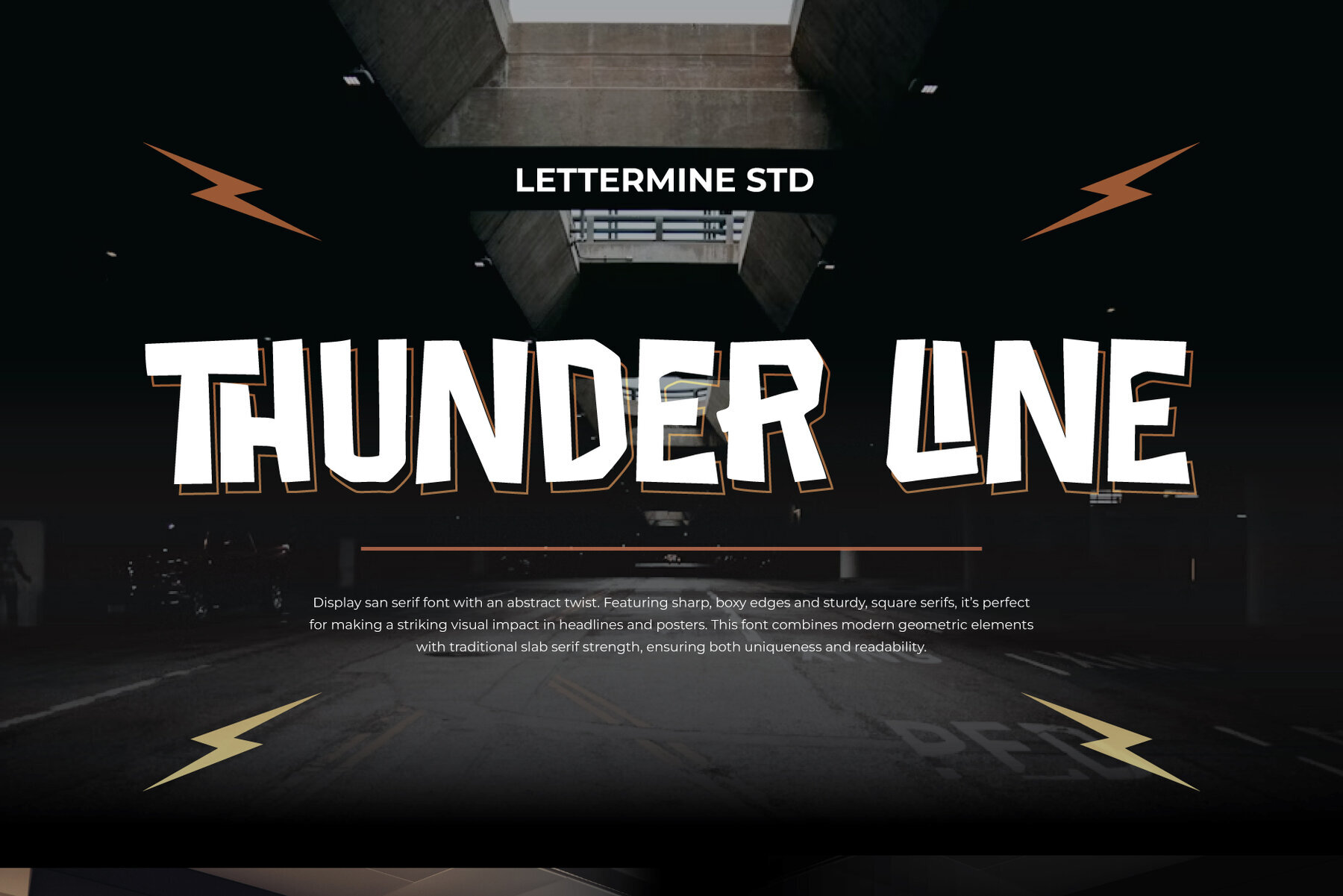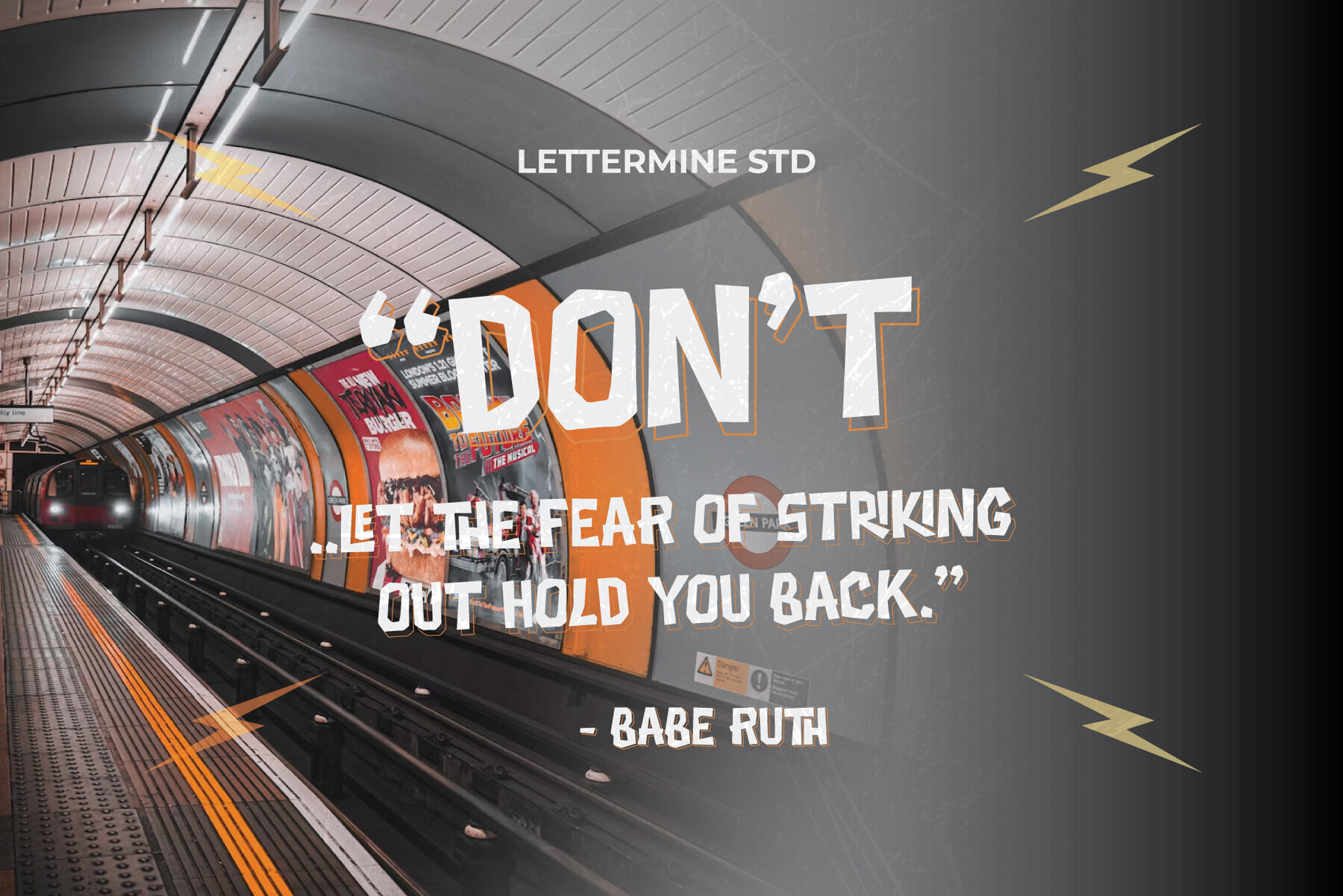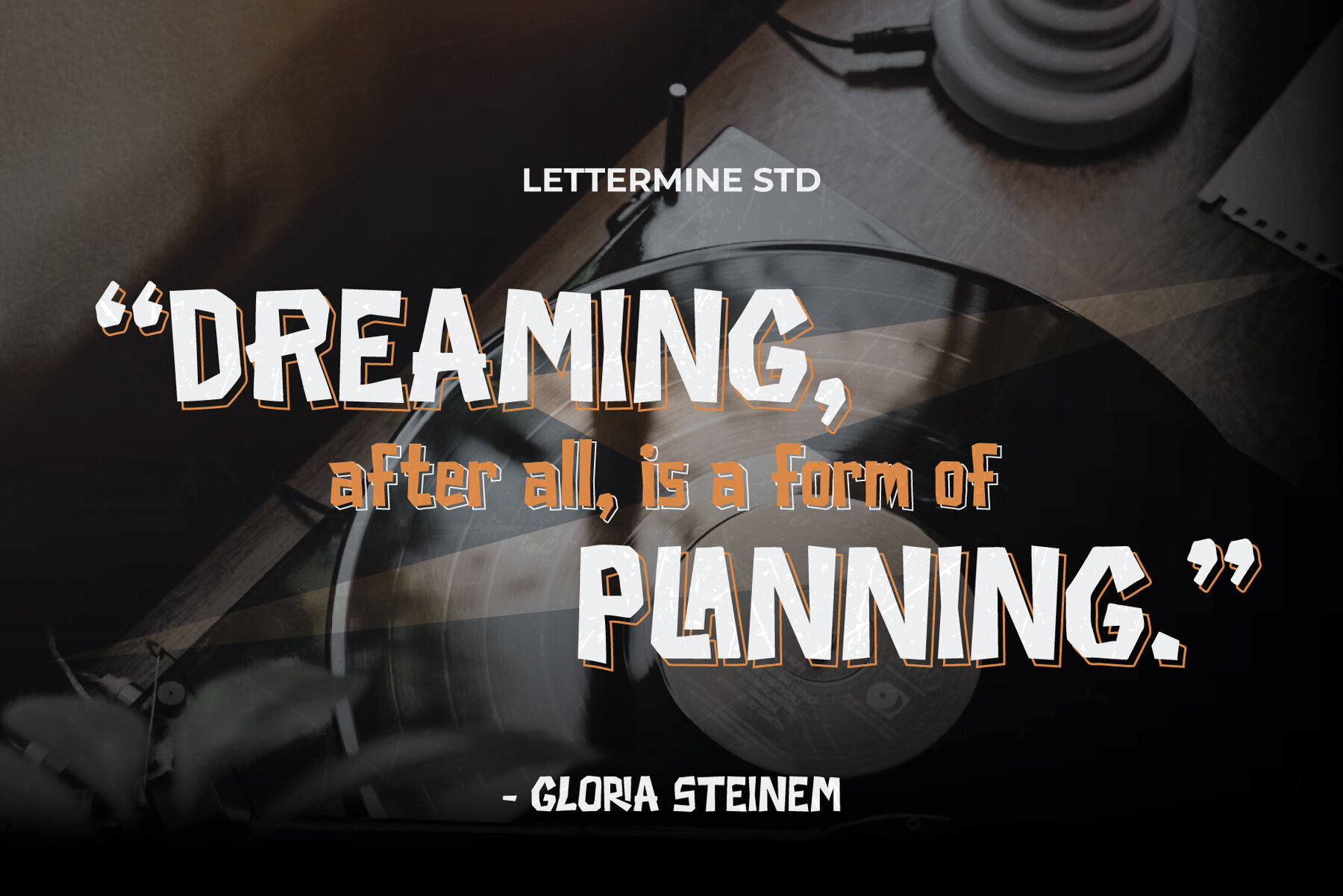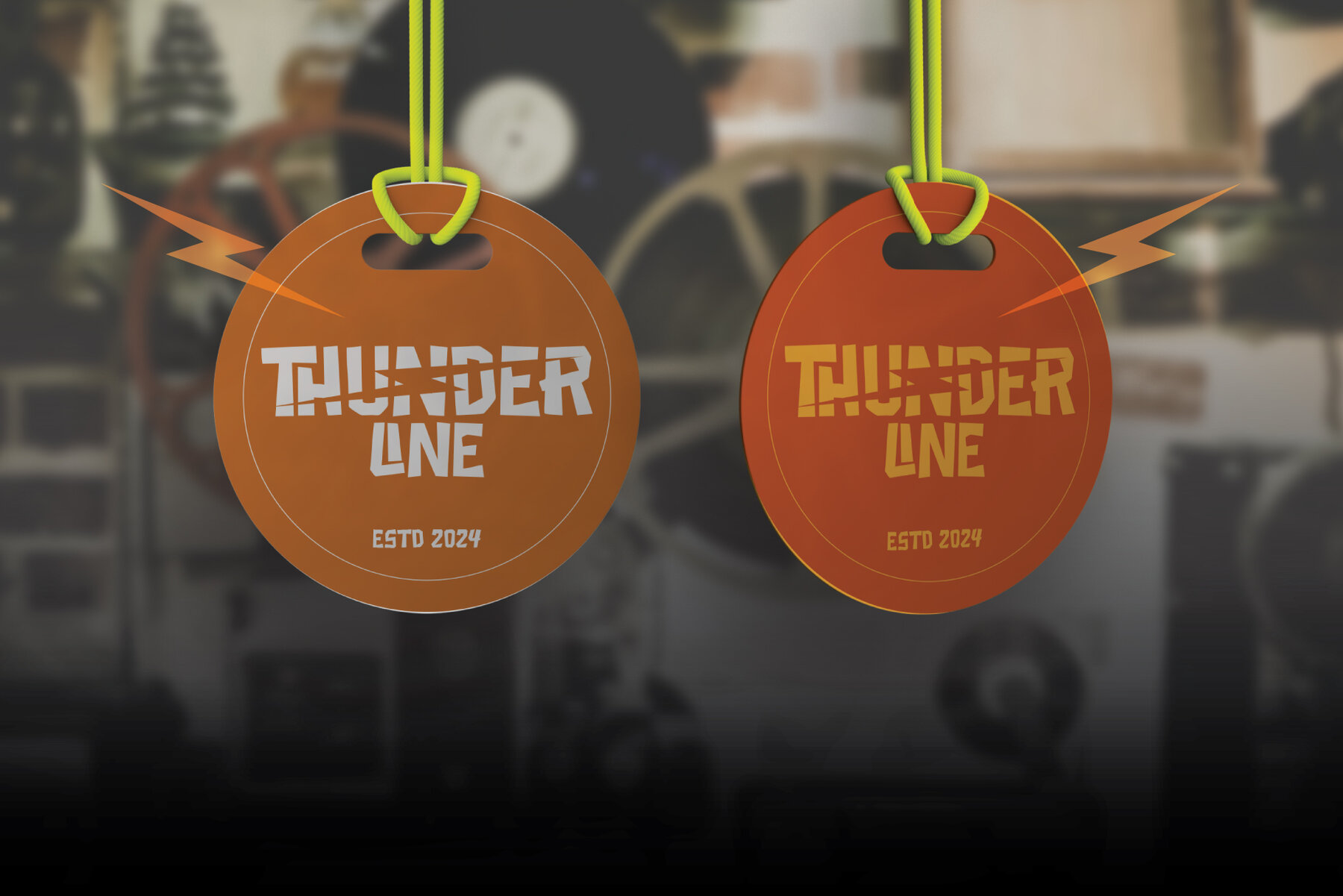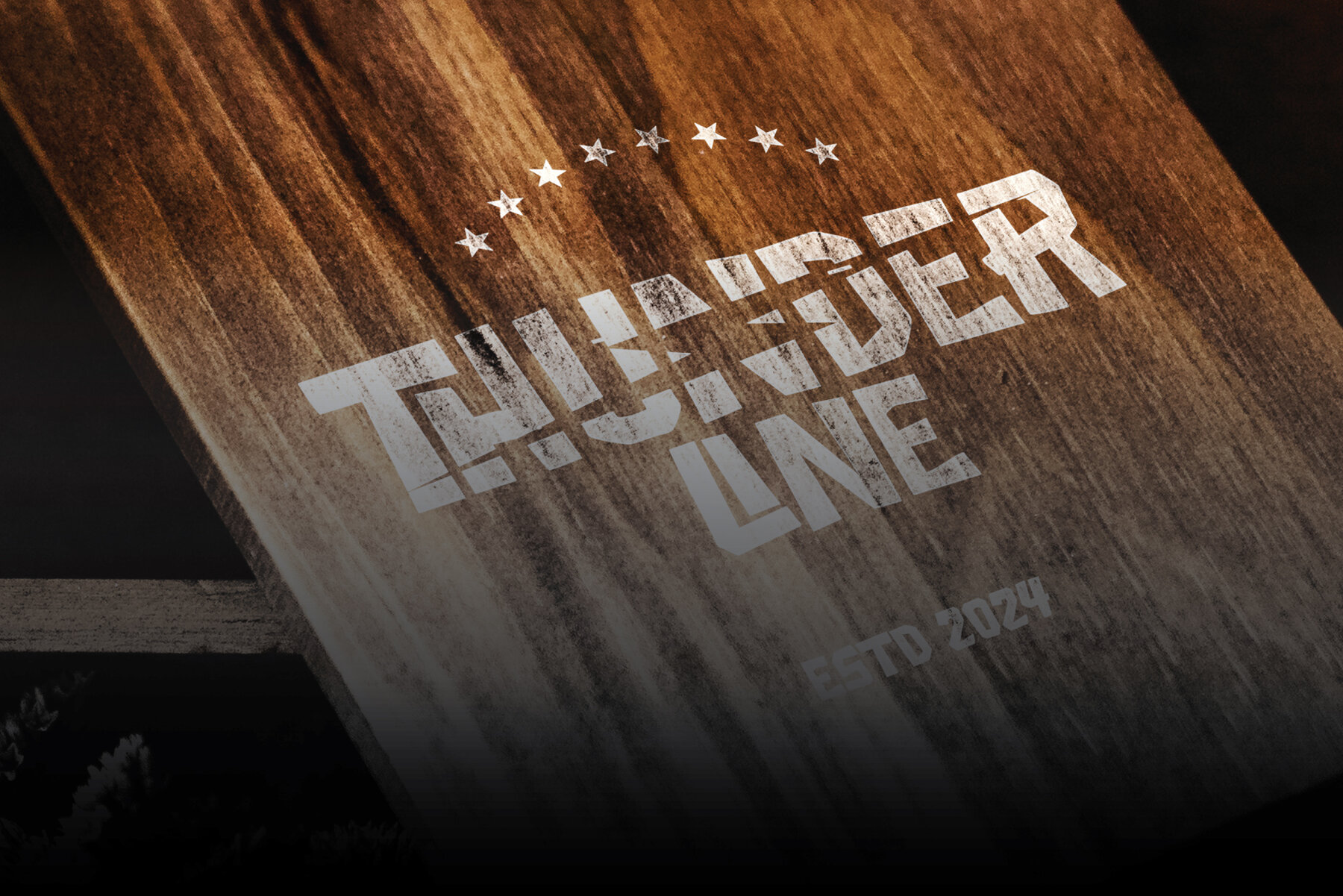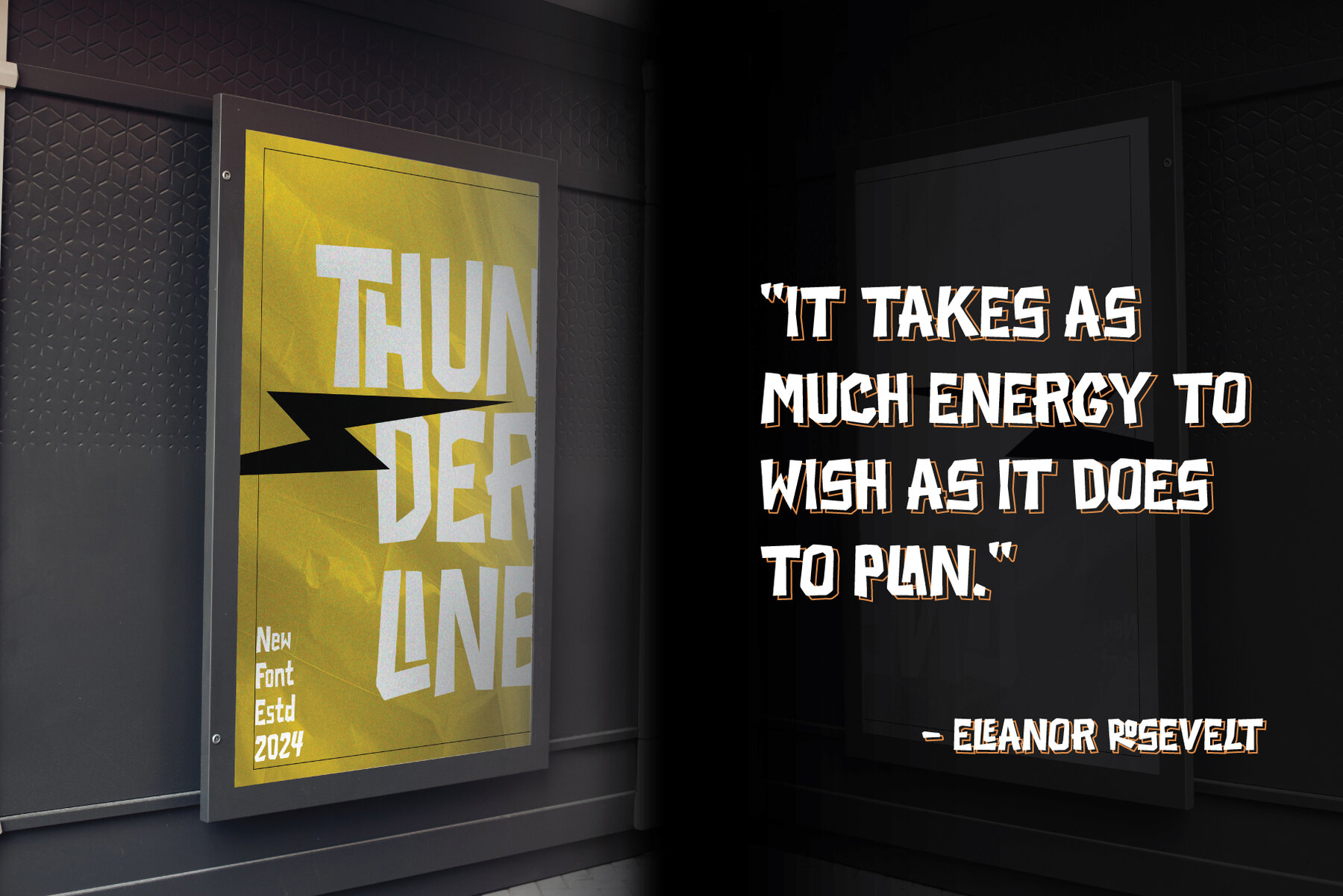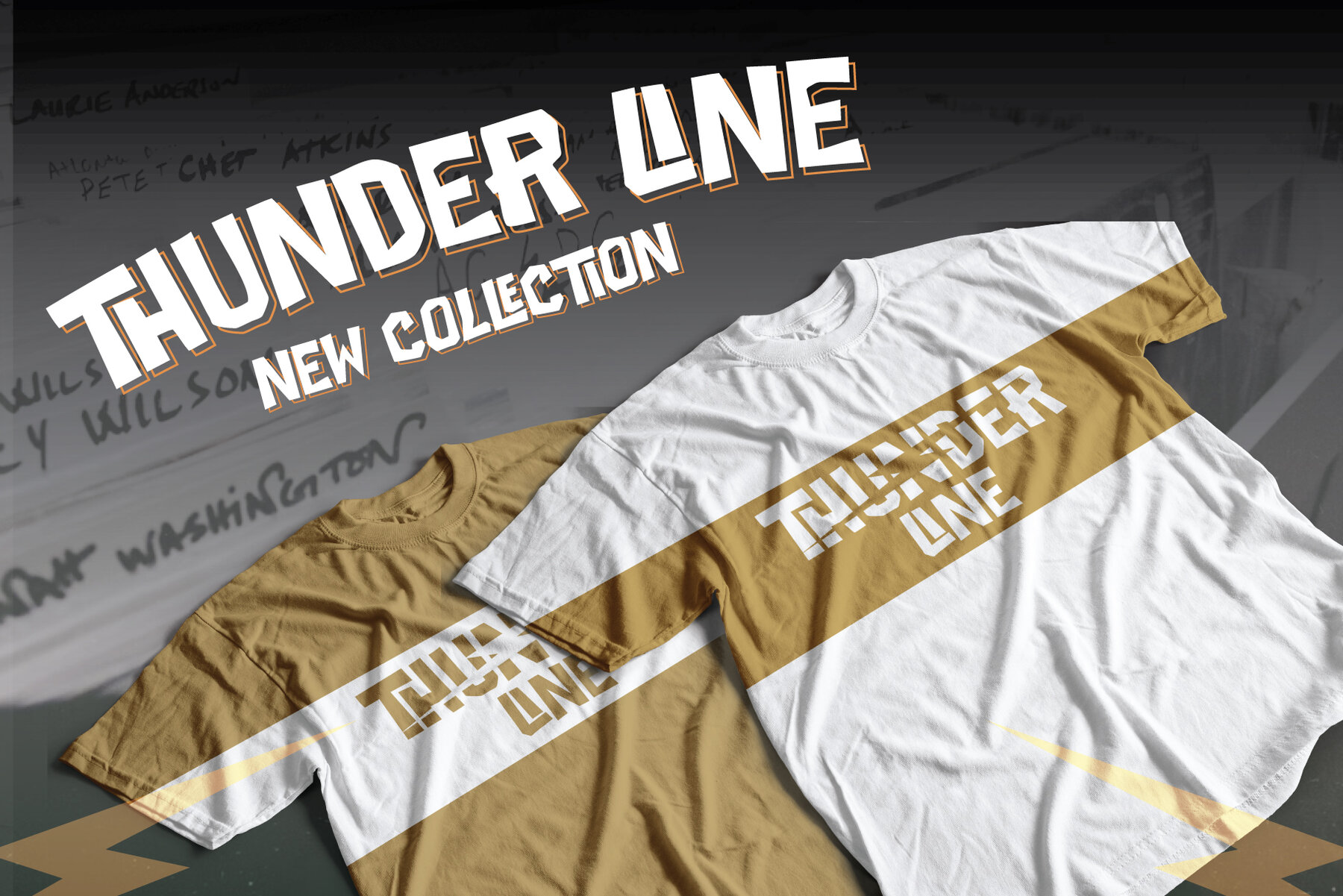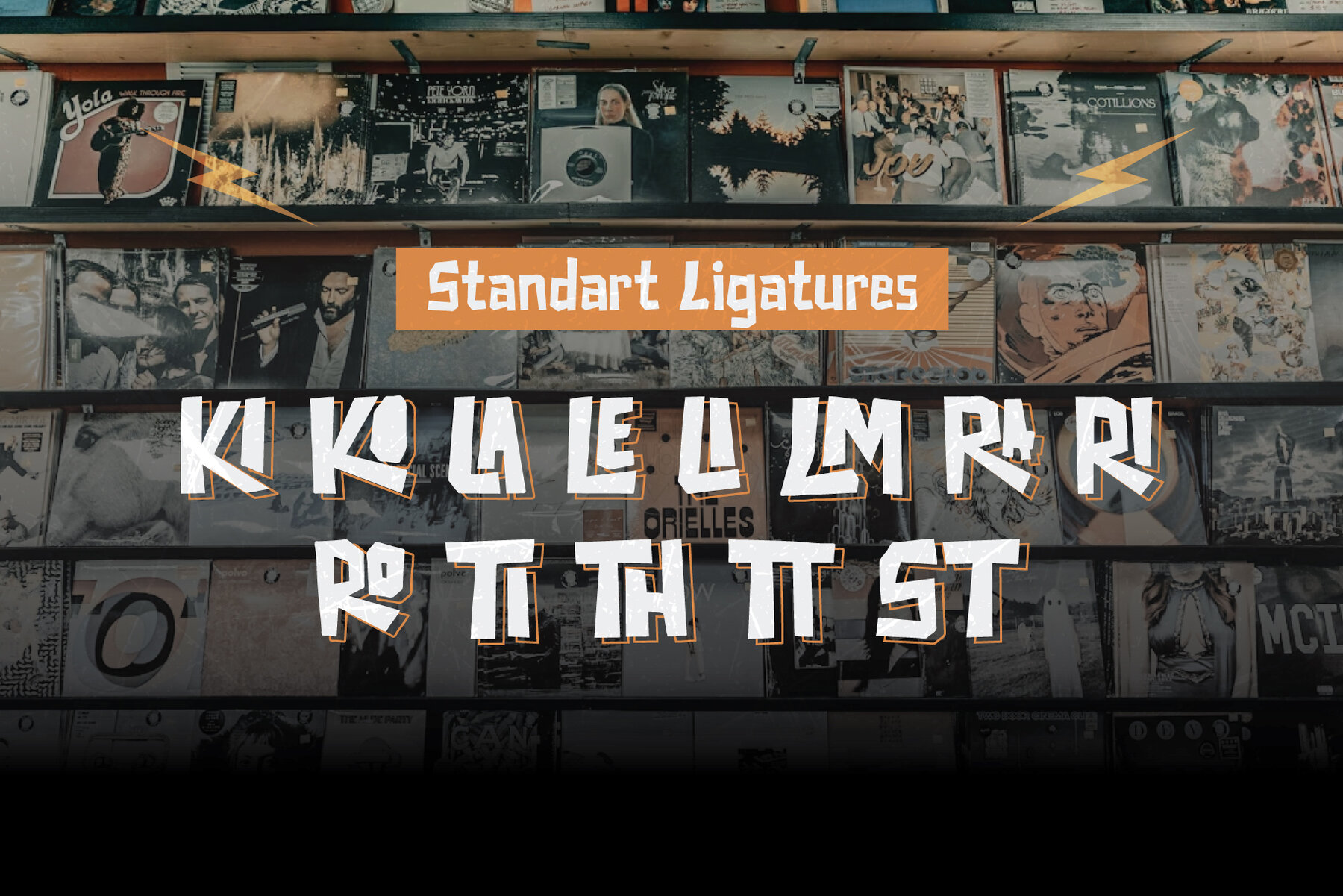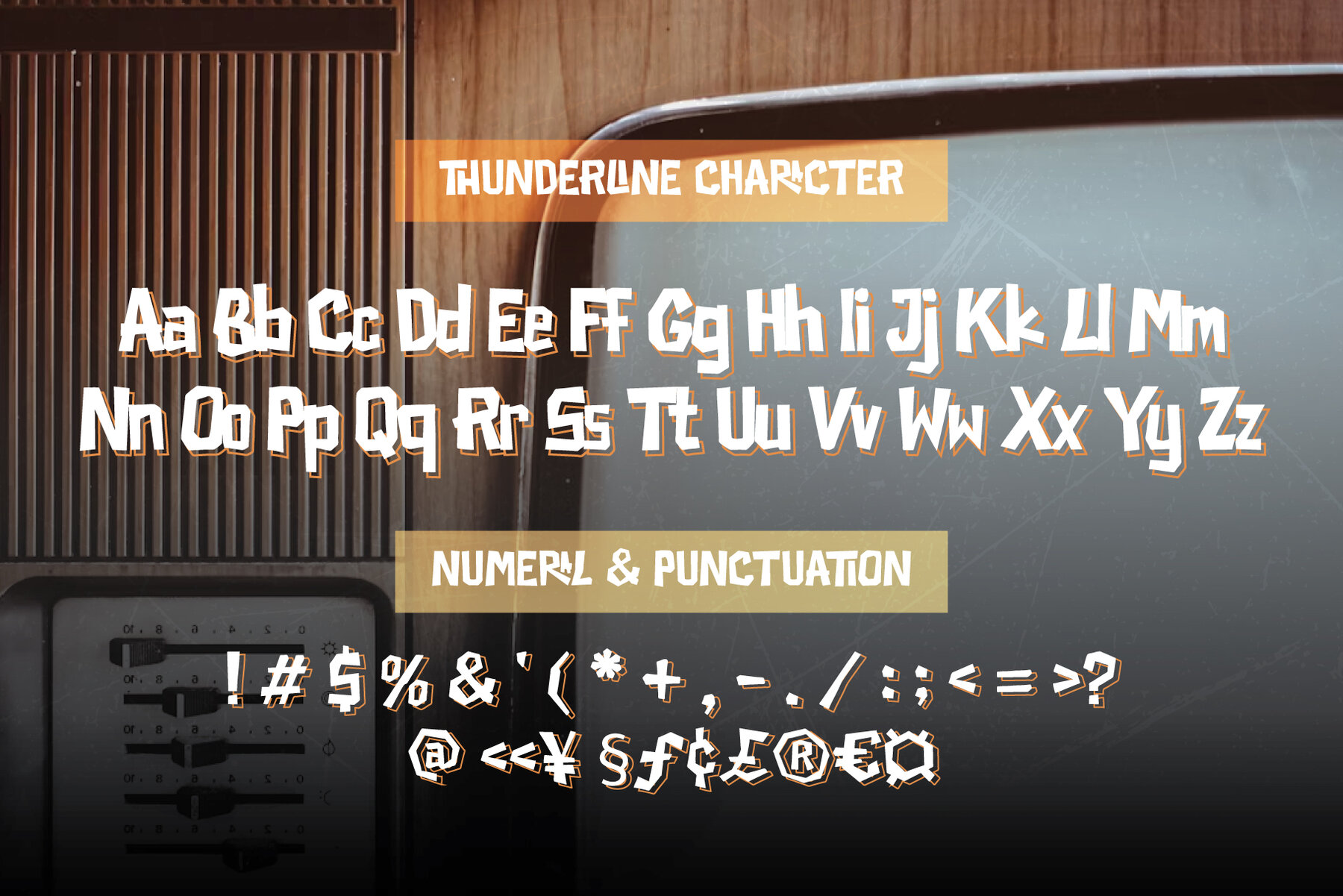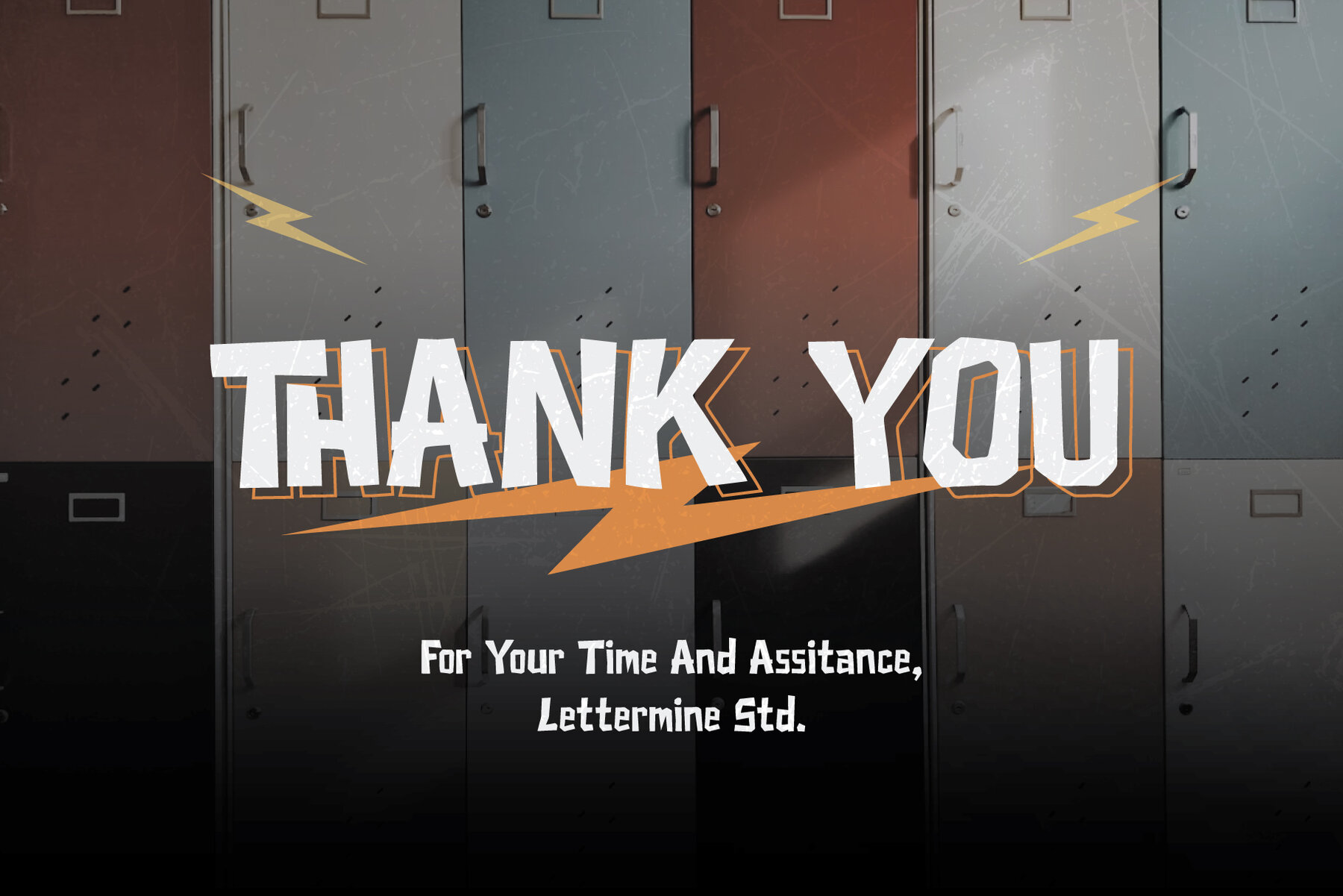
Thunder Line Font
THUNDER LINE is a sleek, modern display sans serif font designed for bold and impactful projects. Featuring clean lines and a strong presence, this versatile typeface is ideal for a variety of creative applications. Whether you’re working on headlines, posters, branding, editorial design, or social media graphics, THUNDER LINE delivers striking clarity and a professional edge.
This font includes both uppercase and lowercase letters, along with punctuation and ligatures, ensuring you have all the elements needed to craft polished and cohesive designs. With its contemporary aesthetic and strong visual appeal, THUNDER LINE is perfect for making a statement in any design project.